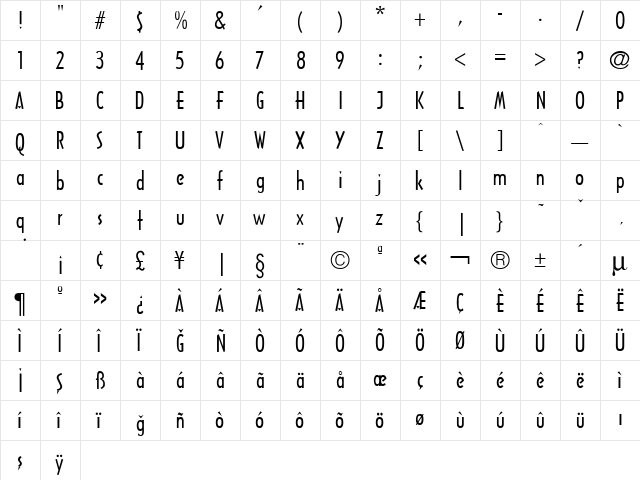
TrSah Architecture Regular
Design Context for TrSah Architecture Typeface
TrSah Architecture is a composed and adaptable typeface that performs quietly and consistently across a wide range of design contexts.